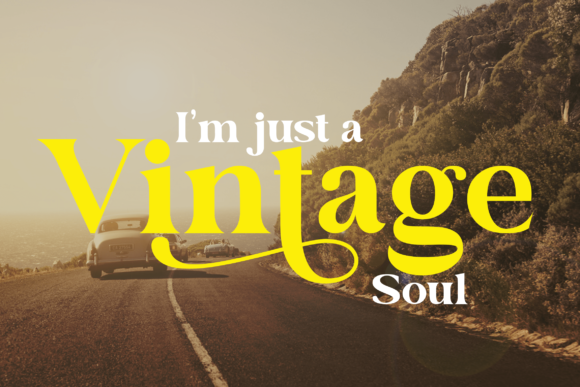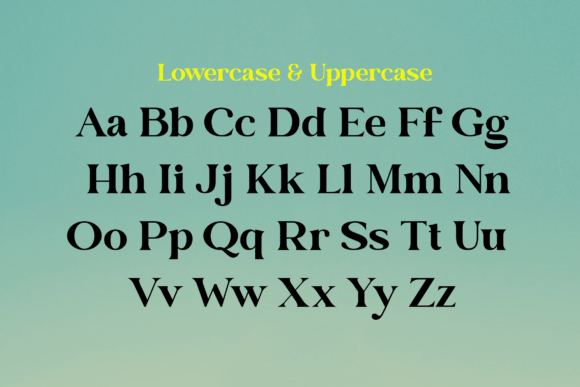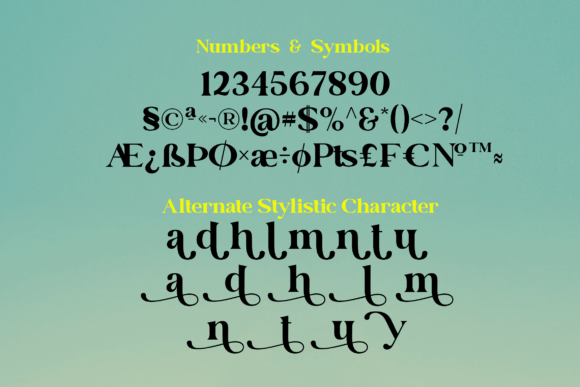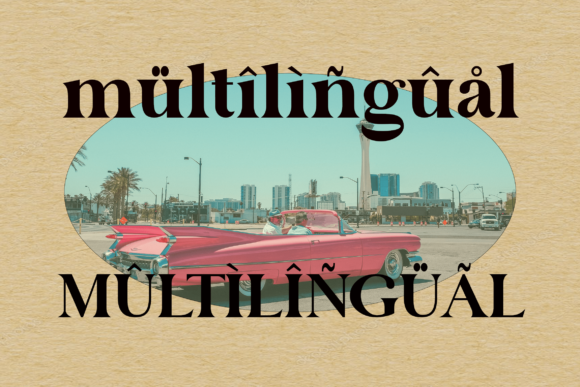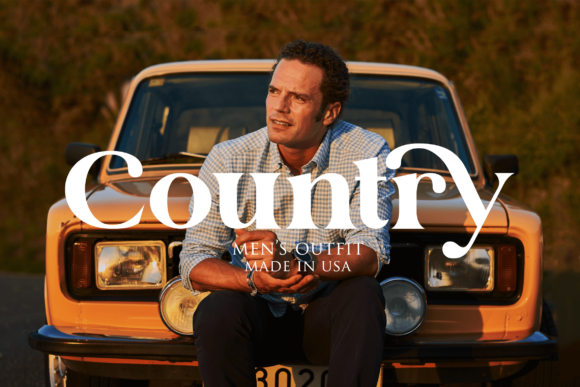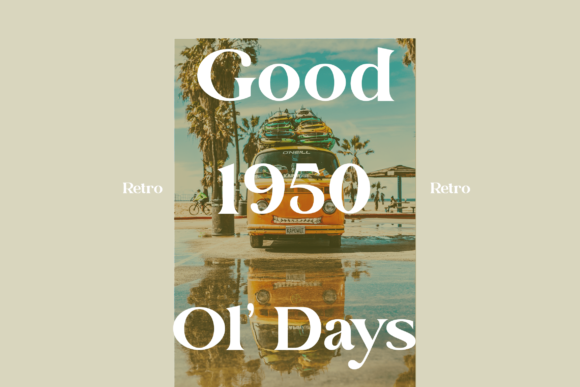
Introducing Glamsy Font: Elevate Your Designs with Elegance and Style
In the world of design, fonts play a crucial role in conveying the tone and aesthetic of a project. For designers and crafters seeking to add a touch of sophistication and glamour to their work, Glamsy Font is an exceptional choice. This elegant, stylish, and trendy serif font is perfect for a variety of applications, from wedding invitations and greeting cards to logos and business cards.
What is Glamsy Font?
Glamsy Font is a meticulously crafted serif font that exudes luxury and refinement. Its classic design is infused with modern elements, making it a versatile and on-trend choice for designers. The font’s elegant lines, precise curves, and balanced proportions create a visually stunning effect that is sure to captivate audiences.
Key Features of Glamsy Font
• Elegant and Refined: Glamsy Font boasts a sophisticated design that adds a touch of glamour to any project.
• Serif Style: The font’s classic serif style lends a sense of tradition and timelessness, making it perfect for designs that require a sense of heritage or luxury.
• Trendy and Modern: Despite its classic roots, Glamsy Font has been crafted with modern sensibilities in mind, ensuring it remains fresh and relevant.
• Versatile: From wedding invitations and thank you cards to logos, business cards, and greeting cards, Glamsy Font can be used across a wide range of design applications.
Weddings, anniversaries, and other special occasions call for a font that conveys love, luxury, and celebration. Glamsy Font is specifically suited for:
• Wedding Invitations: Set the tone for your special day with beautifully designed wedding invitations that showcase your personal style.
• Thank You Cards: Express your gratitude in style with elegant thank you cards that leave a lasting impression.
• Event Branding: Create cohesive and sophisticated branding for your events, including stationery, signage, and more.
Ideal for Logos and Business Cards
For businesses and entrepreneurs looking to establish a strong brand identity, Glamsy Font offers a professional and stylish solution:
• Logos: Create a lasting impression with a logo that exudes elegance and sophistication.
• Business Cards: Stand out from the competition with beautifully designed business cards that reflect your brand’s personality.
Tips for Using Glamsy Font
To get the most out of Glamsy Font, consider the following tips:
• Pair with Complementary Fonts: Combine Glamsy Font with sans-serif fonts for a striking contrast.
• Experiment with Colors: Try different colors and textures to add depth and interest to your designs.
• Play with Sizes: Use varying font sizes to create visual hierarchy and emphasize key elements.
Glamsy Font is a versatile and elegant serif font that can elevate any design project. Its classic yet modern design makes it perfect for a wide range of applications, from wedding invitations and event branding to logos and business cards. With Glamsy Font, designers and crafters can add a touch of sophistication and glamour to their work, creating stunning designs that leave a lasting impression.